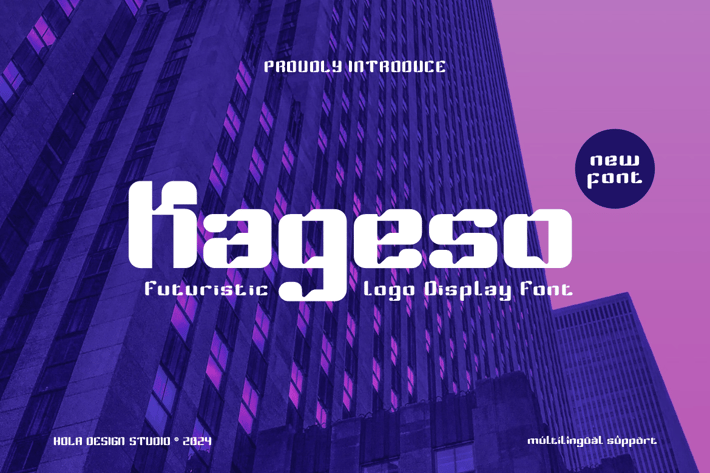
Kageso - Futiristic Font
Kageso - Futiristic Font Font is unique . Ready to use for your design like labeling, movie sceen, poster, movie title, gigs, album covers, logos, and much more.